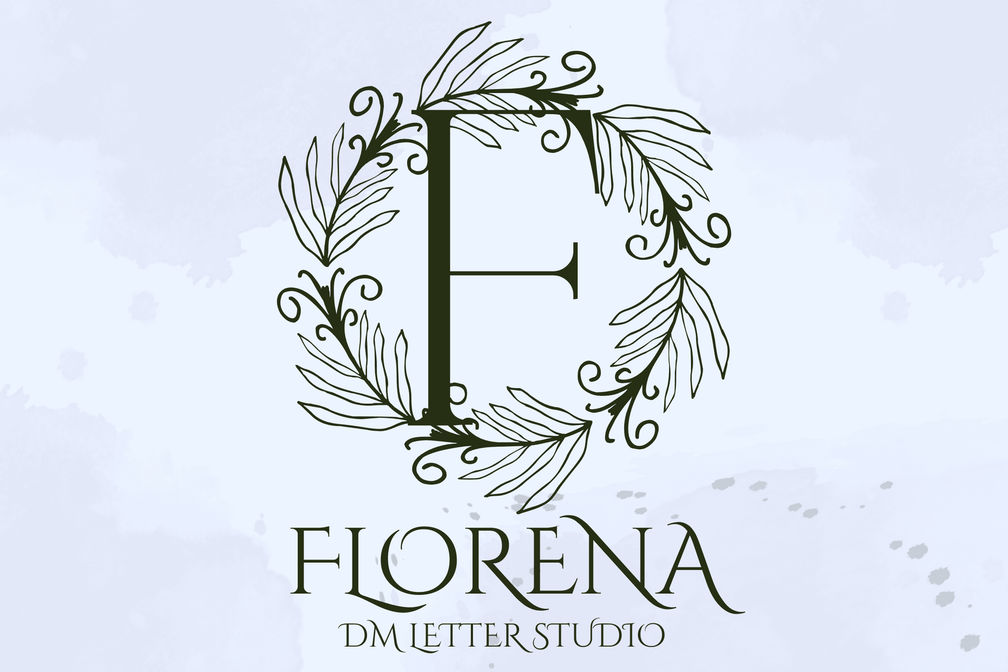
Florena Monogram
Florena Monogram – Elegant Serif Monogram Font with Delicate Floral Accents
Florena Monogram is a refined serif monogram font featuring graceful uppercase letters paired with soft floral illustrations. Inspired by classic botanical beauty, this font brings timeless charm and feminine elegance to any design—perfect for weddings, Cricut projects, personalized branding, and seasonal stationery.
Floral Embellishments: Each initial is decorated with hand-drawn florals, adding a soft and organic aesthetic.
Classic Serif Lettering: Balanced serif shapes ensure a professional and timeless appeal.
Romantic & Versatile: Ideal for designs that blend elegance with natural beauty.